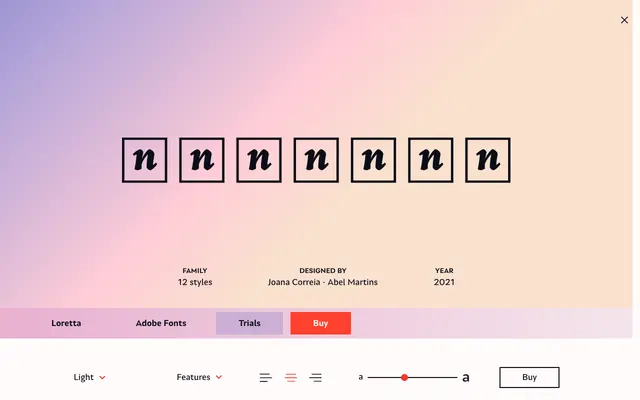
Loretta
A contemporary text serif by Joana Correia and Abel Martins, with calligraphic origins restrained into stable, legible forms across six weights.
Designed by Abel Martins and Joana Correia and released in 2021, Loretta offers six weights from Light to ExtraBold each with a matching italic, totalling 12 styles. Low contrast and open shapes make it well-suited to body text in print and on screen, while the italic retains enough calligraphic energy to hold its own in editorial settings. OpenType features include oldstyle figures, tabular and lining figures, contextual alternates and standard ligatures.
Loretta is a contemporary serif with calligraphic roots, low contrast and open counters, placing it in the transitional serif tradition suited to continuous text and editorial work.